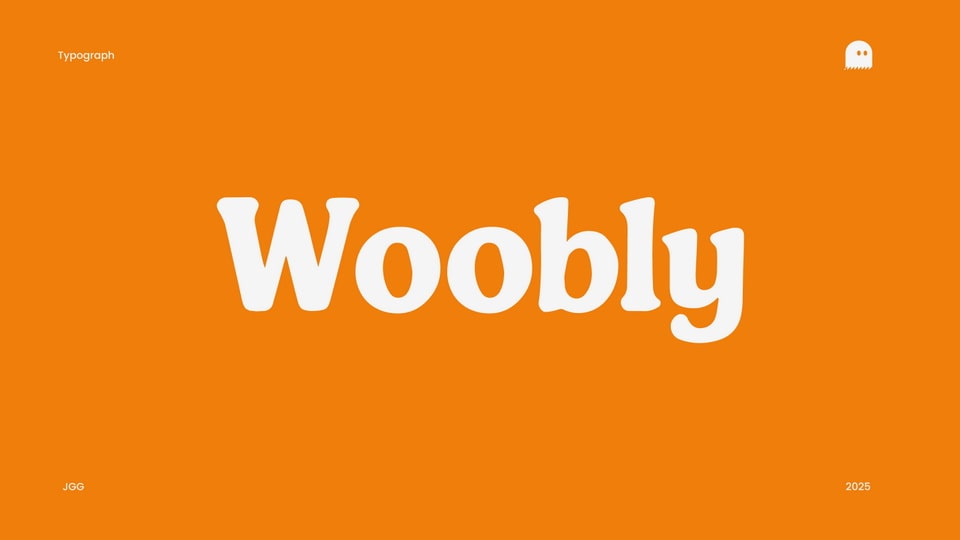
Download Woobly font, a bold and cheerful display typeface that embraces playfulness and charm. With rounded curves and soft, bouncy letterforms, it brings a sense of warmth and friendliness to any design.
Designer: João G. Gonçalves